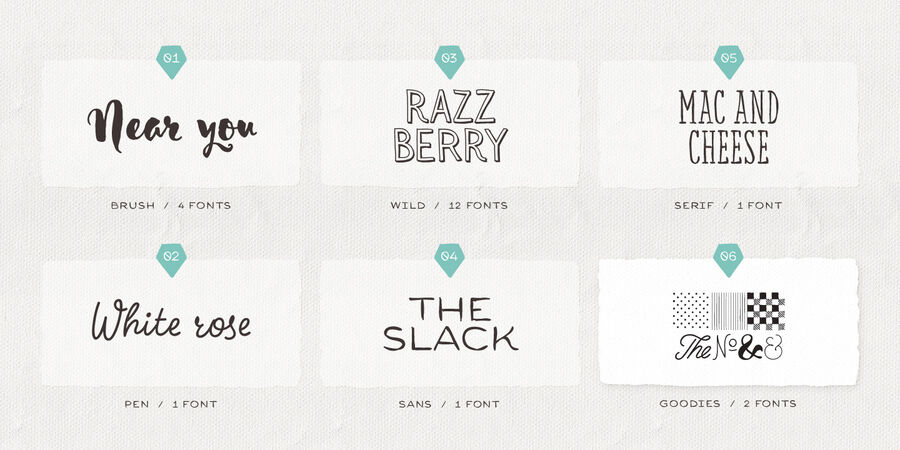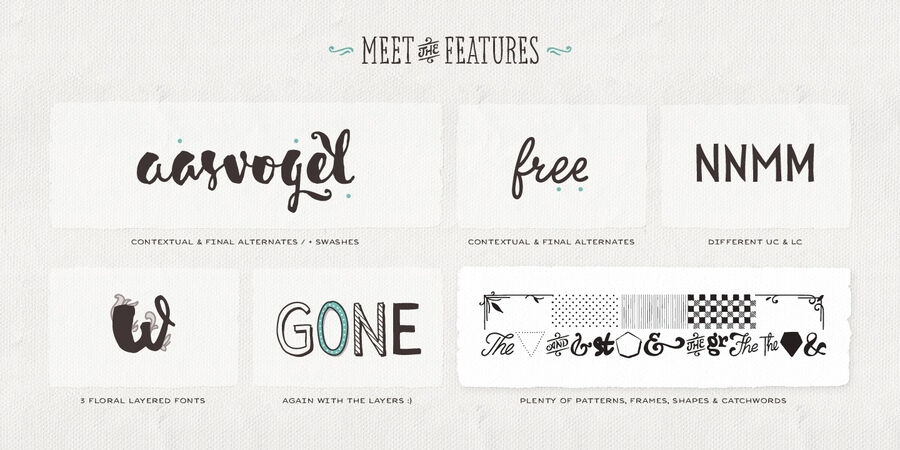
About Sensa GoodiesSensa font is a handmade typeface family consisting of 21 fonts. Among other script fonts, this one is divided into 6 subfamilies, each contributing to its wide range of visual power – Sensa Brush, Sensa Pen, Sensa Wild, Sensa Sans, Sensa Serif and Sensa Goodies. Only your “brush” is the limit. Pick any of the Sensa fonts as a leading and the rest of the fonts can accompany it with ease. To work together in all possible combinations, all fonts in this package are created with that simple idea in mind. The Sensa font is applicable for almost every design project – from advertising, packaging, editorial and branding, to web and screen projects. For beauty and tender sensation or for more male and strong communication—you have a wide selection. Cyrillic is supported. 2 Sensa fonts available FREE. OpenType Features: Stylistic Alternates, Contextual alternates, Swashes, 1–3 Localised Forms. The typeface was designed by Fontfabric team in 2015-2018.